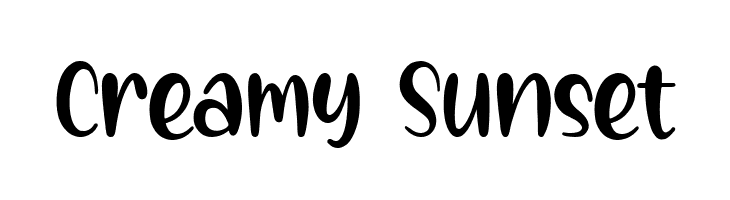
A bold, playful font with rounded, bubbly letterforms and a friendly appearance.
A bold, italicized font with a playful, rounded style and smooth, flowing characters.
A bold, playful italic font with a dynamic and energetic style.
A playful, cursive font with bold strokes and a handwritten style.
A lively, flowing script font with a playful, handwritten style.
A playful, whimsical font with smooth curves and elegant strokes.
A playful, organic handwritten font with uneven strokes and a casual appearance.
A lively, cursive script font with a handwritten feel and dynamic stroke variations.
A bold and playful script font with flowing curves and strong presence.
Playful handwritten font with a casual style.